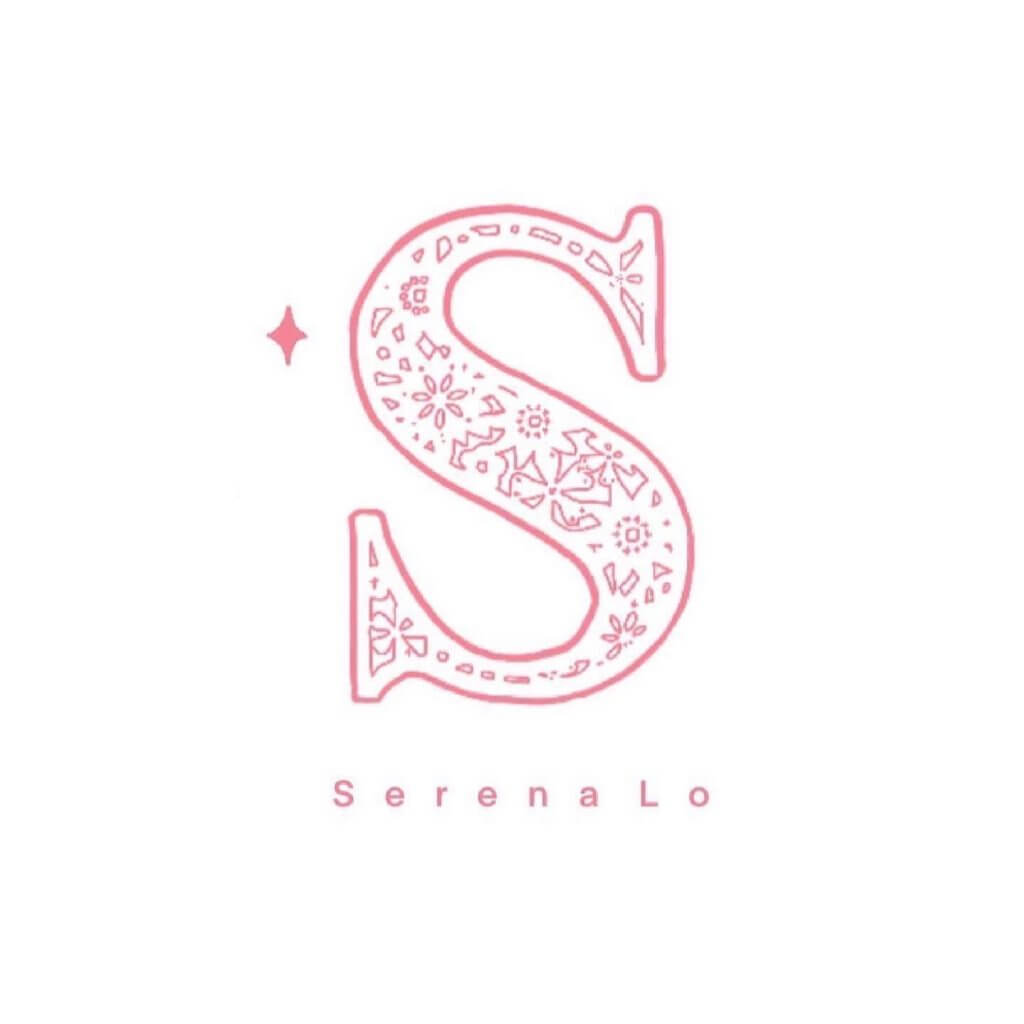
Design Ideas and process
I have always wanted to design a logo of my own. A logo is usually the first thing that catches the eye and it is important to give a strong first impression. A good logo is memorable, giving people a sense of comfort because it is representative.
The first one was one of my earliest designs and the whole logo was hand-drawn. I used a semicircle around the letter S. The letter S stands for my name and the semicircle means I am not perfect and I still have a lot to learn. The open half-circle represents the willingness to accept other people’s opinions and gain more knowledge. And the lines and patterns in the letter S represent my inner thoughts.
The second design is an improved version and one that I am quite happy with. My name is no longer handwritten but by a type tool. I really like the colours of the logo, so I will keep the colours. The flower on the left seems to steal the attention from the letter S, which is already patterns inside there. The whole design has become a bit confusing. By removing the flower and the semicircle on the left, the letter S catches the attention back. The whole design is no longer too complicated, but not too simple or boring.
I think the logo from the last one is too pink and gives the stereotype of femininity and girly. I wanted my design to be welcoming to everyone, so I adjusted the background colour and the pattern colour. This is one of my favourite and most satisfying designs. It doesn’t feel too girly without giving up too much of my favourite colours. This version is simple, as I have added some small designs to it. The absence of the half-circle design means that I am no longer in my comfort zone, but open to different opinions, criticism and change.
During the research, I came across a resource that impressed me, which was not very long and straightforward to the point. It states 5 principles of logo design and which are simple, memorable, timeless, versatile and appropriate. I understand that a logo is to communicate with the readers and create something that resonates and is memorable. Examples are also stated in the blog which allowed me to take them as references. Those ideas inspire me to look at similar materials the common and popular logos have. I referenced different logos, for example, Facebook, Youtube, Twitter etc. I found that most of them are simple in both the illustration and colours. This helped me develop my own logo design and I decided to keep my logo simple. There isn’t more than one object in my logo design and I keep the whole logo in two colours.